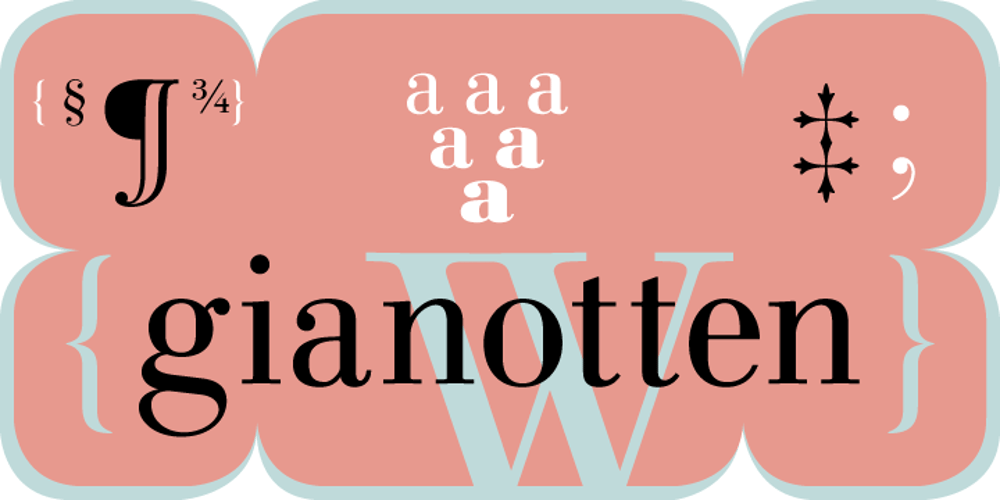
Linotype Gianotten Font Family was designed by Giambattista Bodoni, Antonio Pace and published by Linotype. Linotype Gianotten contains 12 styles and family package options. It took the Italian designer Antonio Pace more than five years to create Linotype Gianotten™, a successful new interpretation of the classic Bodoni types. To re-draw the 200-year-old characters for the world of modern digital technology, Pace studied Giambattista Bodoni’s original punches at the Bodoni Museum in Parma. He felt that previous Bodoni interpretations were not well suited for body texts, so he focused his study of Bodoni’s “Manuale Typografico” on the types made specifically for text sizes. Consequently, his Bodoni has strong hairlines, rounded transitions and shorter, fluted serifs – elements that help to achieve readability by providing an overall tranquil effect. This contemporary, highly readable family is an excellent choice for text settings in books, newspapers, and magazines. Incidentally, the name Gianotten has nothing to do with Bodoni, but was chosen by Pace and Linotype to honor Dutch typographer, Henk W. J. Gianotten.”